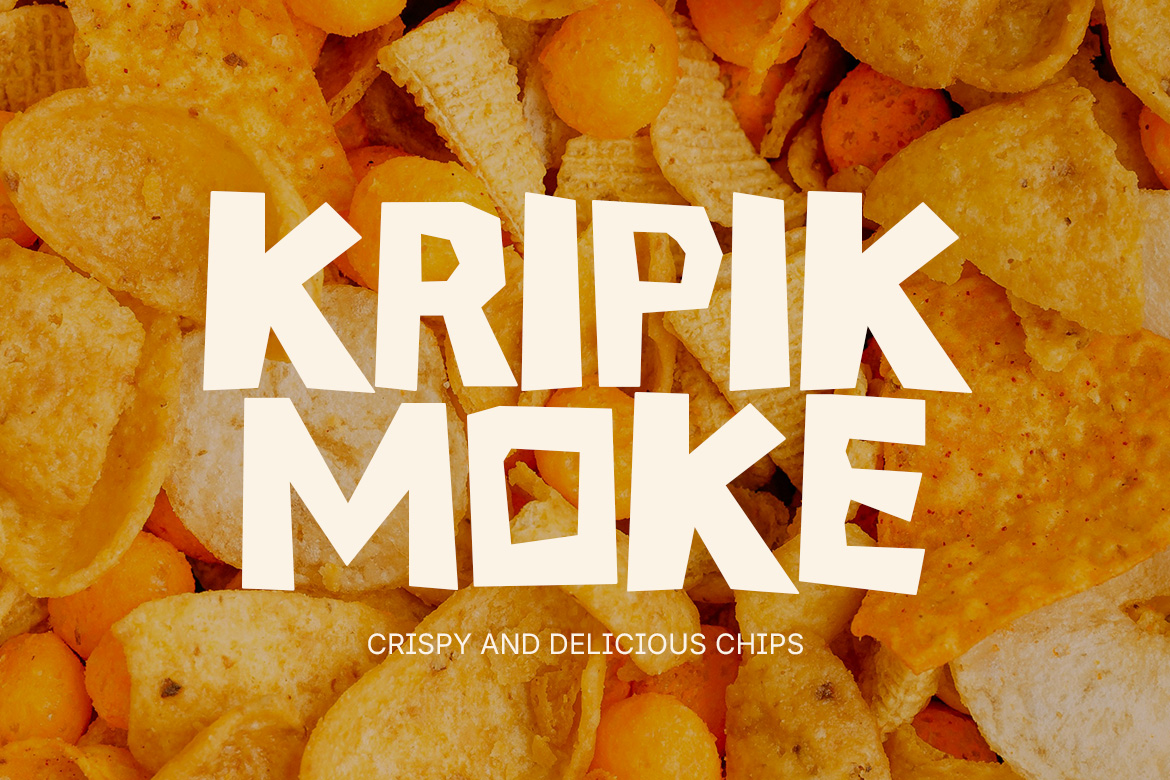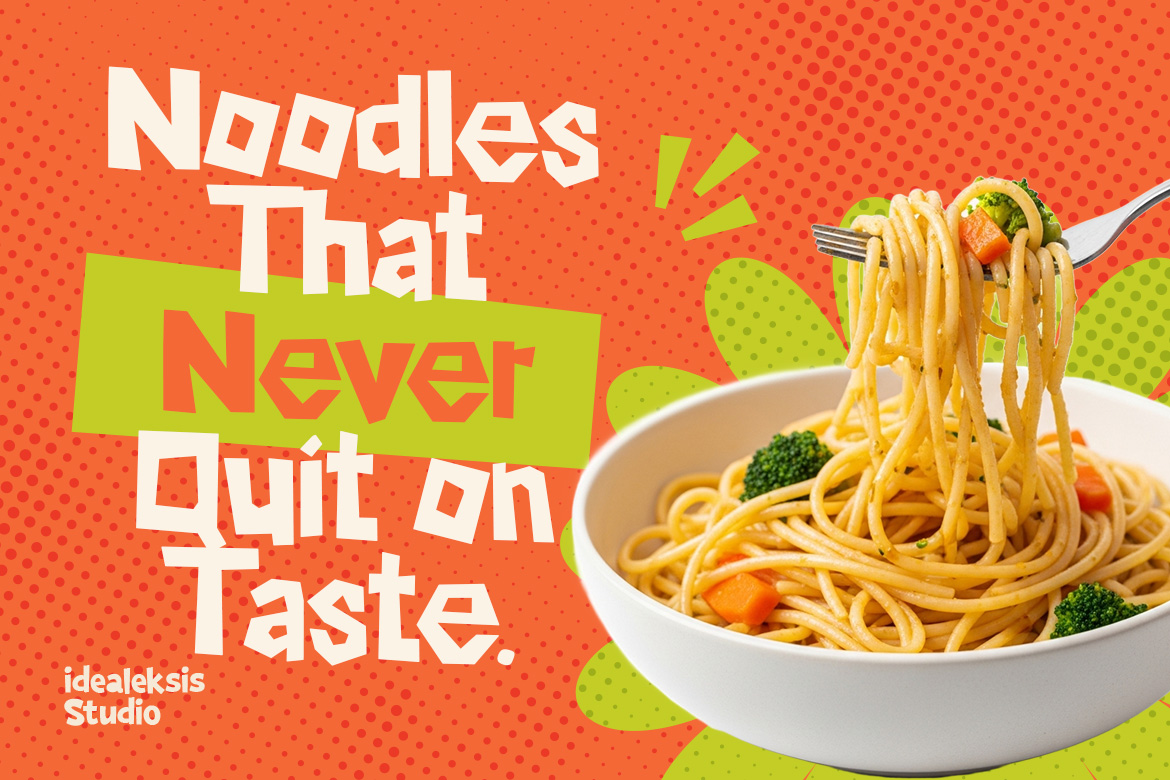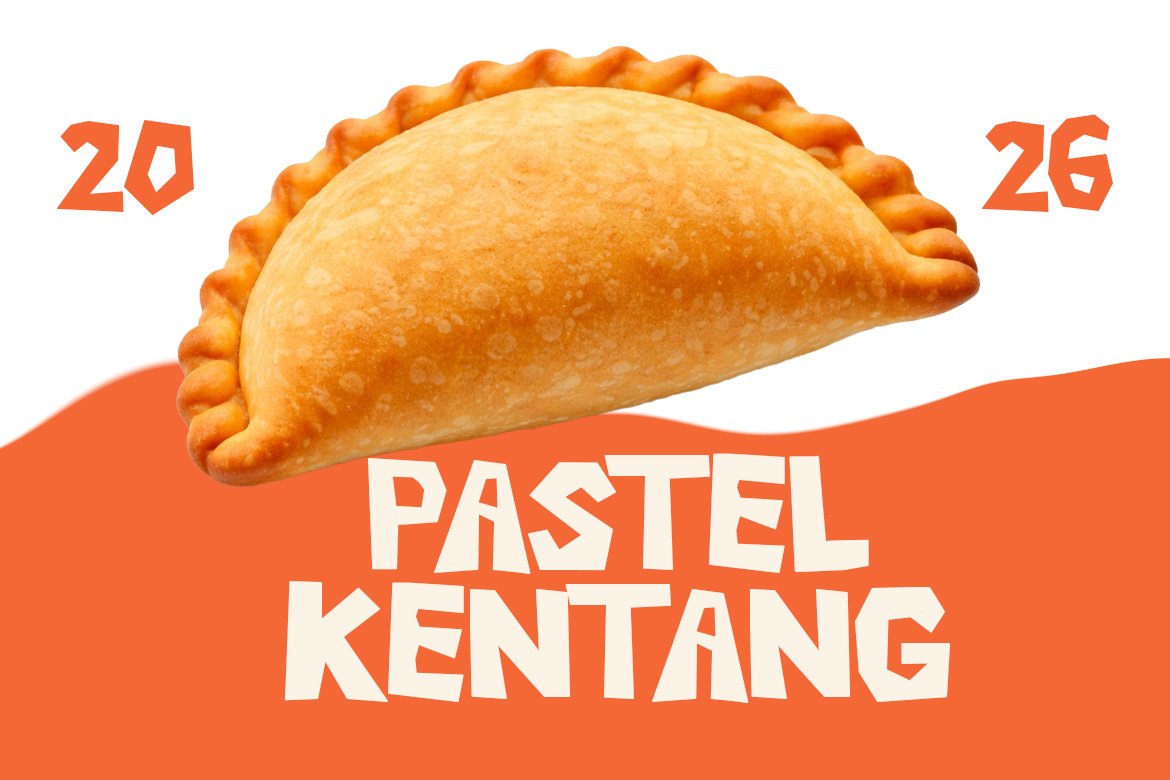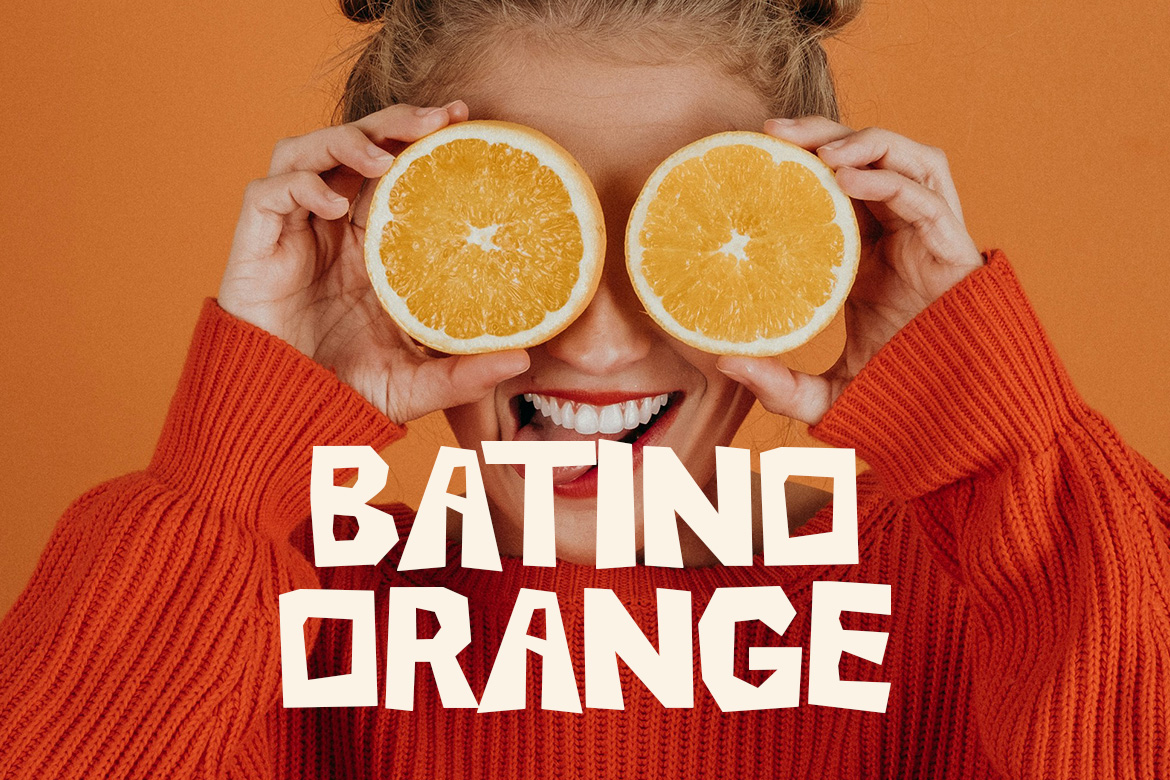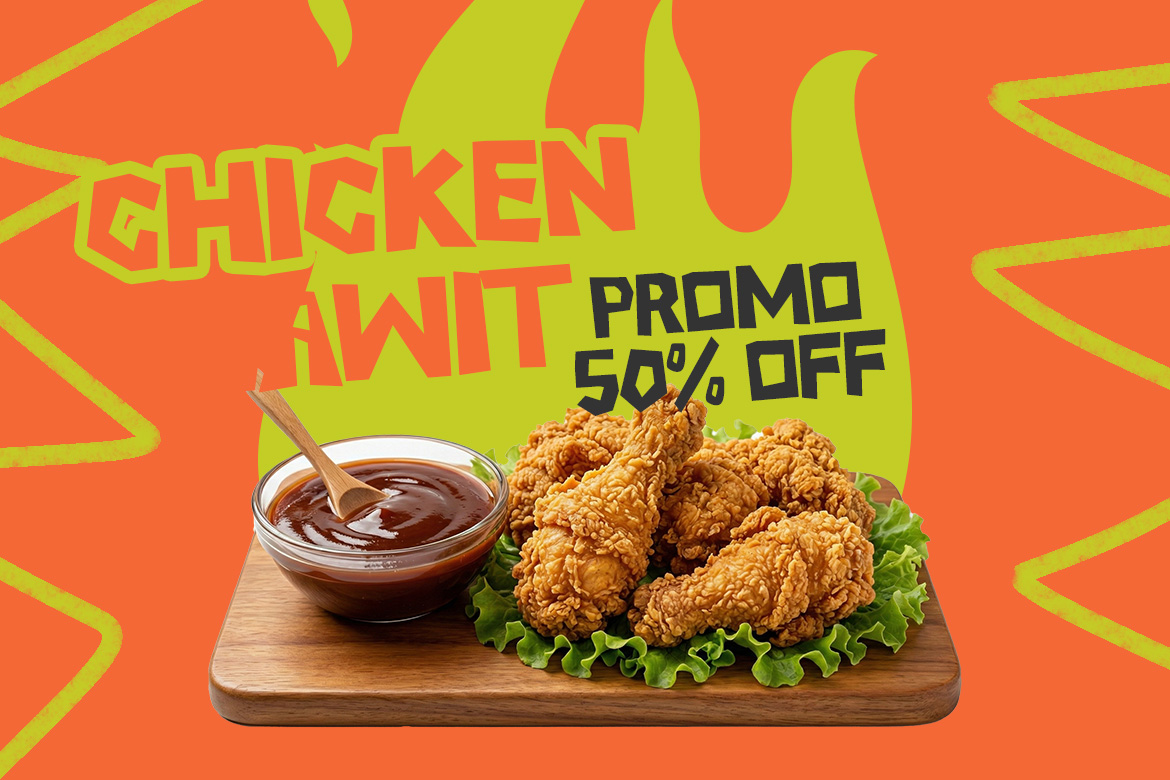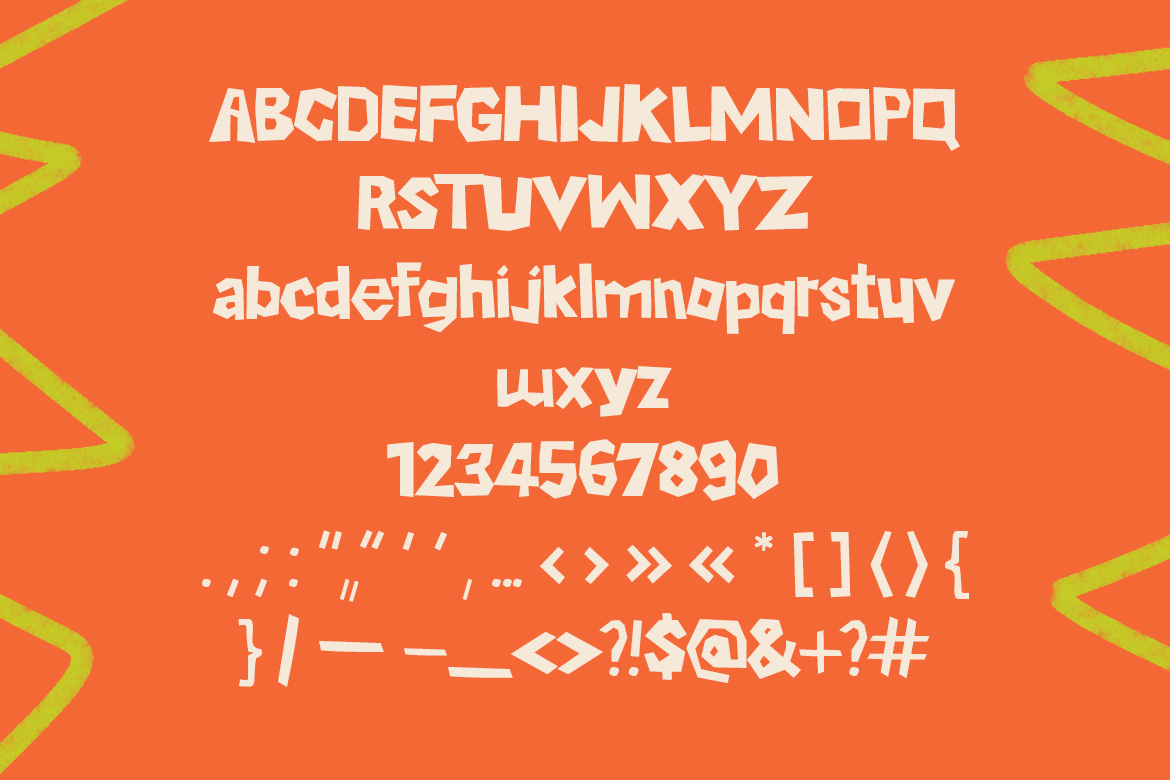
A bold and chunky display typeface characterized by its irregular, hand-cut geometric shapes. The letterforms exhibit a heavy weight with sharp, angular terminals and uneven stroke widths, creating a playful and energetic rhythm. Its blocky construction lacks traditional serifs, instead opting for a raw, paper-cut aesthetic that feels tactile and organic. This font is specifically designed for high-impact visual communication in the food and beverage industry, making it ideal for packaging, menus, and vibrant social media branding where a fun, artisanal personality is required.